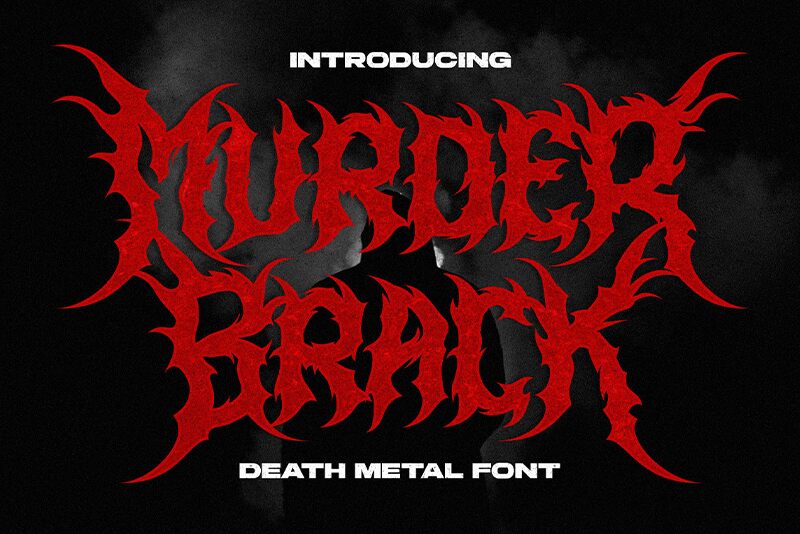
Murder Brack font designed by Multype Studio is a free font that combines gothic aura with dynamic, elaborate forms. The intense and aggressive look is achieved through its powerful and expressive style, along with elaborated sinister shapes. They deliver a dramatic and dark character, as do all other font elements, and keep the quality that its professional design requires.
This is a display font that can capture attention and speak volumes without wasting a second. An intricate but powerful font, it can be used for logos, labels and packaging designs, posters, signage, banners, invitations, magazines, or book covers. Mixing contemporary designs with a classic gothic style, it allows you to create a visual with a particular rich tone and voice.